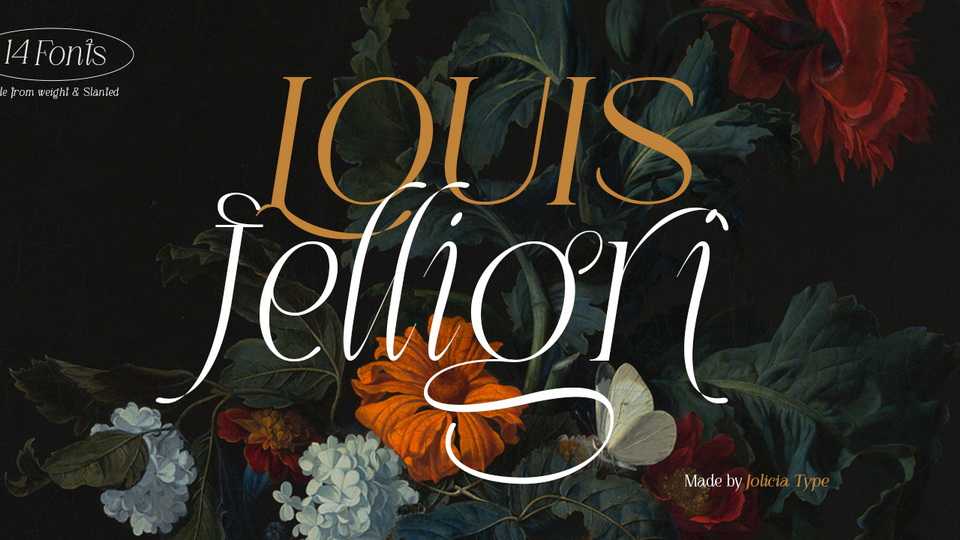
Download Louis Felligri font, a modern display serif typeface with an elegant and artistic appearance. Play around with individual letters to give your type a unique look.